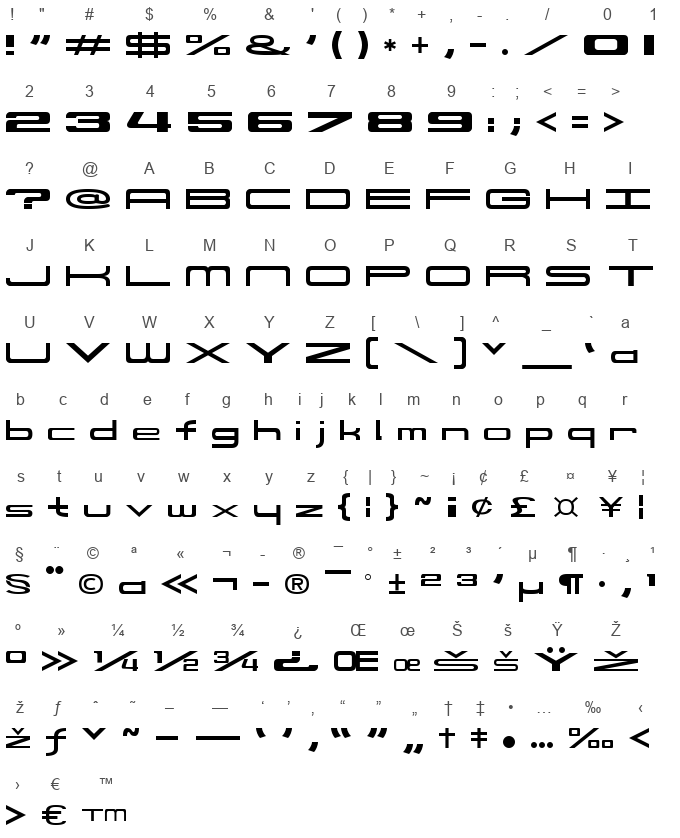
The name "914-SOLID" suggests a font with a strong, unambiguous presence. "SOLID" likely refers to the font's weight or style, implying a bold or heavy appearance that stands out on any page or screen. This type of font might be characterized by its robustness, making it an excellent choice for headlines, titles, and any text that needs to catch the reader's eye. Its letters could feature substantial strokes and a consistent width, providing a uniform and impactful visual appeal.
Designed by E. V. Norat II, this hypothetical font might carry the designer's unique flair or philosophy, marrying creativity with functionality. The designer's involvement suggests that 914-SOLID could incorporate innovative elements or unique characteristics that set it apart from more conventional fonts. This might include distinctive letter shapes, unusual angles or curves, or even a particular approach to spacing and kerning that enhances readability while offering a fresh aesthetic.
Given its solid and attention-grabbing nature, 914-SOLID would likely be versatile across various mediums, from print to digital interfaces. Its strong presence could make it a favorite for branding projects, advertising, and any platform where message clarity and visual impact are paramount. Whether used in a logo, a poster, or a web design, this font could bring a contemporary and bold vibe, aligning well with modern design trends that favor clarity, simplicity, and standout visuals.
914-SOLID